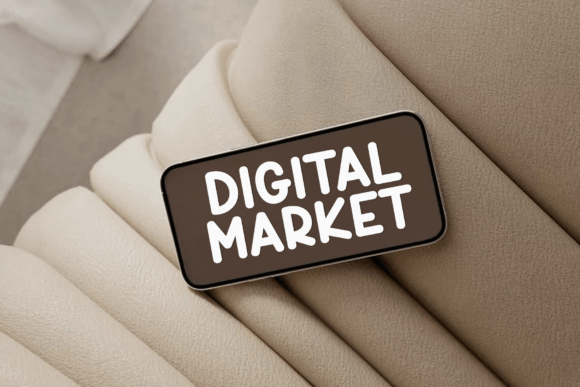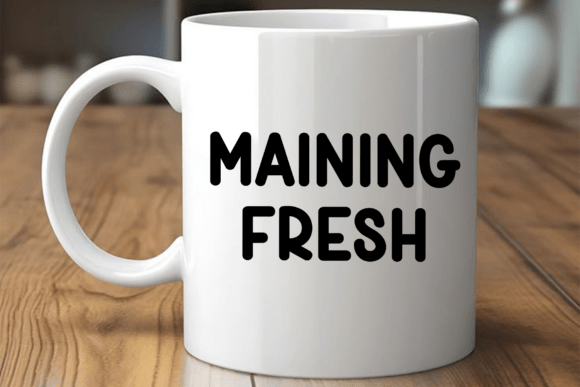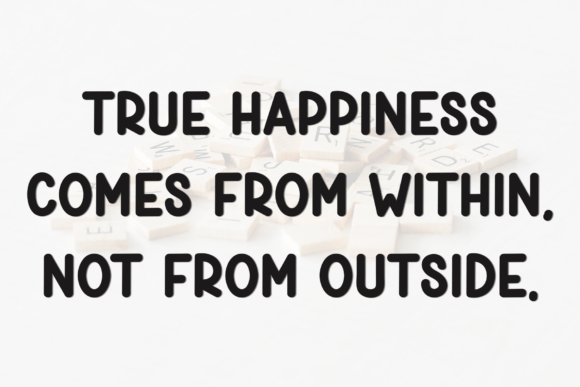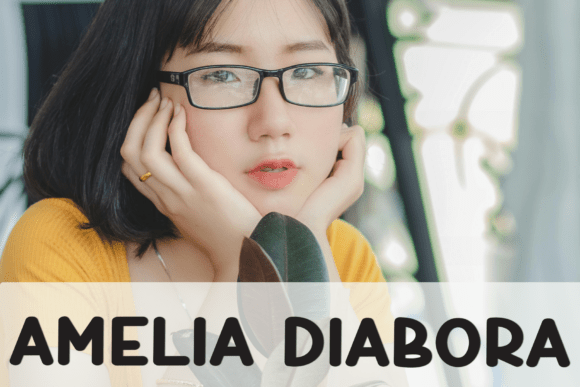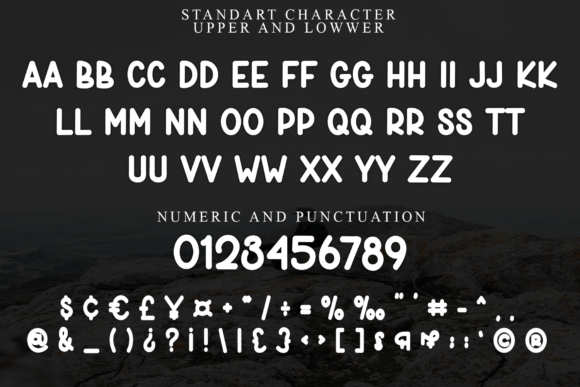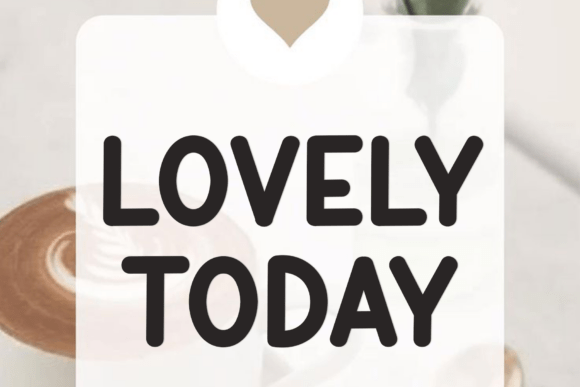
Introduction to Beauty Privilege Font Font
Fonts play a crucial role in design, and the Beauty Privilege Font font is a typeface that brings both character and versatility to any project. Whether you’re working on a branding project, a website, or a print design, the Beauty Privilege Font font offers a unique style that can elevate your work.
Beauty Privilege is a massive and high-impact display font designed with an approachable, contemporary silhouette.
Labeled as a playful sans serif font style , it features heavy character proportions with thick, consistent strokes and soft, rounded terminals The design is characterized by a stable vertical axis and wide character geometry, providing a sense of grounded and professional visual weight.
Key Features of Beauty Privilege Font Font
Why Choose Beauty Privilege Font Font?
The Beauty Privilege Font font is more than just a typeface – it’s a design tool that helps you communicate your message with style and clarity. Its unique character set and versatile design make it suitable for a wide range of applications, from elegant invitations to bold headlines.
With its carefully crafted letterforms and balanced proportions, the Beauty Privilege Font font ensures readability and visual appeal across all mediums.
What makes Beauty Privilege Font font special?
The Beauty Privilege Font font stands out with its unique design, exceptional readability, and versatility across various design applications.